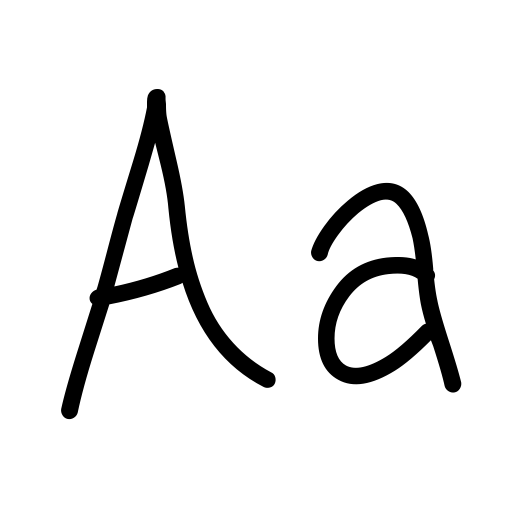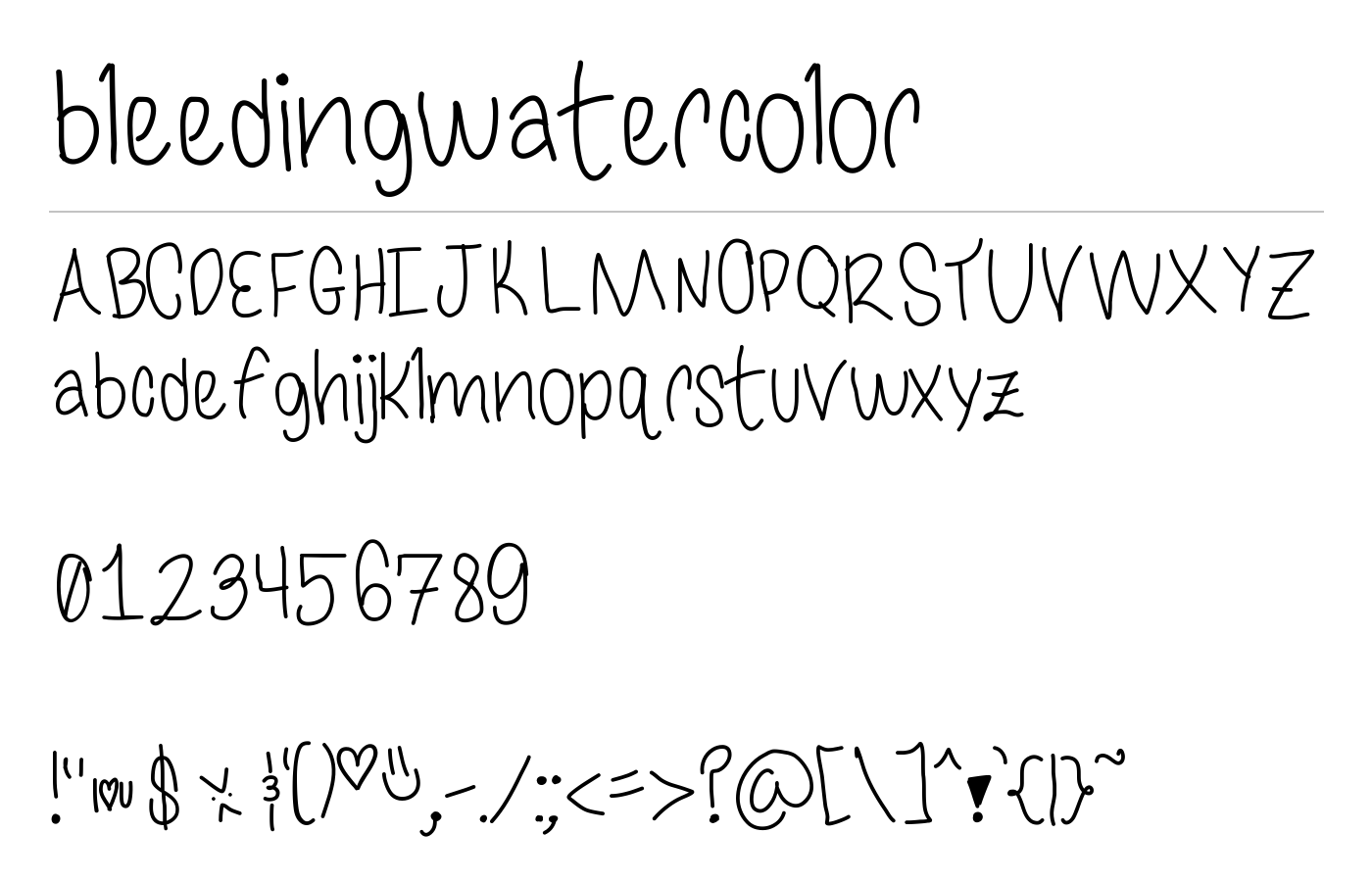
Bleedingwatercolor is a playful and quirky handwritten font with a casual, whimsical feel. Its tall, narrow letterforms and uneven strokes create an approachable and friendly appearance, making it perfect for informal designs like children's books, greeting cards, and creative branding. This font's unique charm adds personality and warmth wherever a lighthearted, hand-crafted touch is needed.
bleedingwatercolor Font
About bleedingwatercolor Font
| Font family | bleedingwatercolor Font |